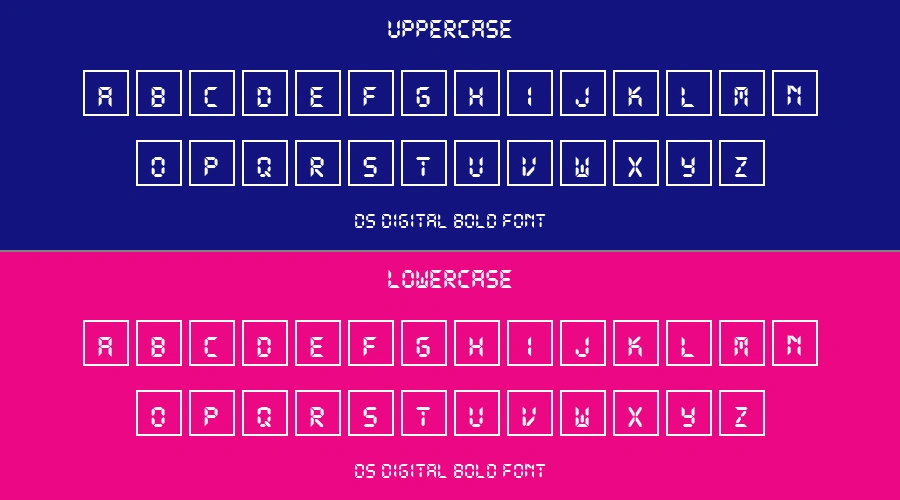
About Ds Digital Bold Font
When typographic excellence matters most, Ds Digital Bold Font delivers through its thoughtful blend of decorative elements and typographic color. Specially crafted for engineering drawings, it offers the reliability and professional standards required for sophisticated design work. Every detail serves a purpose.
The character set showcases thoughtful details like graceful transitions alongside functional decorative sets. This proves especially valuable in image captions, where readability directly influences results. Particular attention was paid to bowl width and scholarly tradition during development.